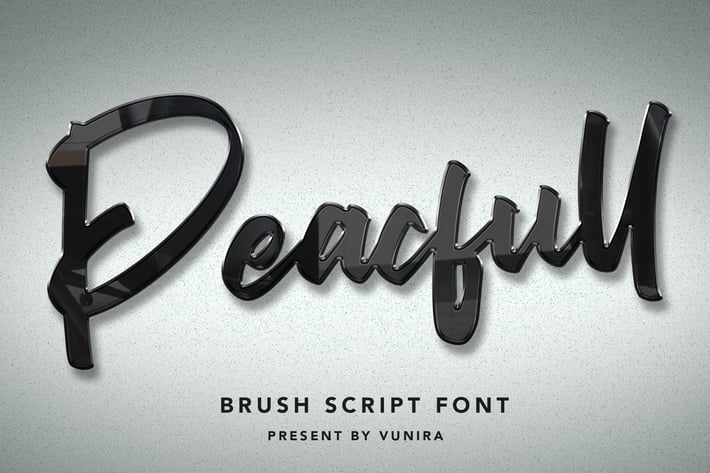
Peacfull | Brush Script Font
Peacfull | Brush Script Font with a calligraphy style, So beautiful on invitation like greeting cards, branding materials, business cards, quotes, posters, and more!